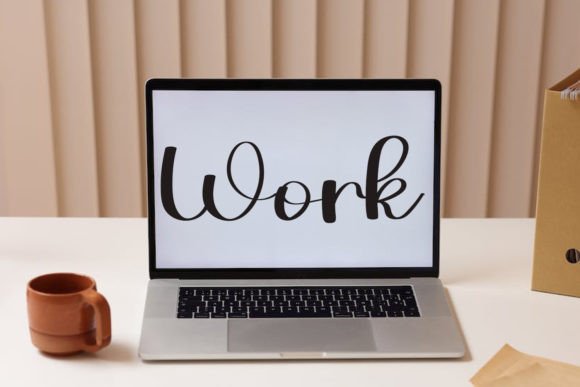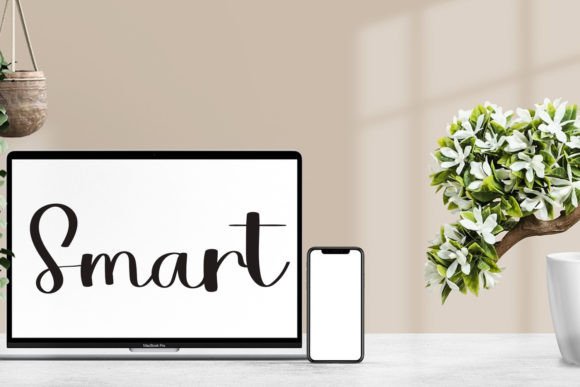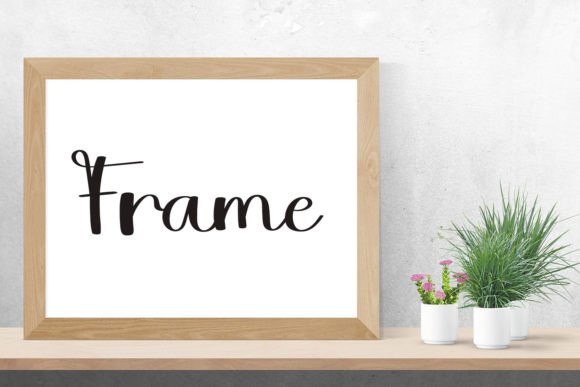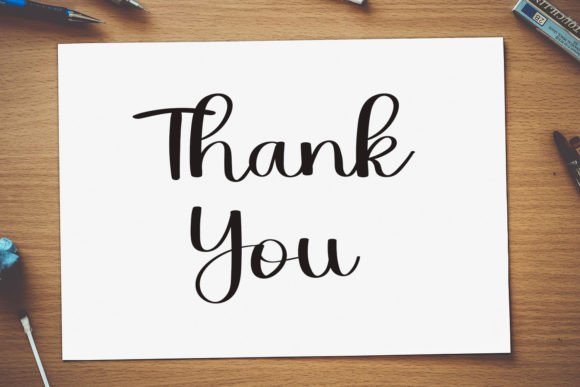
Introducing Heading Font: The Ultimate Typeface for Eye-Catching Headlines
In the world of design, typography plays a crucial role in capturing the attention of your audience and conveying your message with impact. When it comes to creating bold and attention-grabbing headlines, the right font can make all the difference. That’s where Heading Font comes in – a robust and commanding typeface designed specifically for headlines and titles that demand attention.
The Power of Strong Lines and Commanding Presence
Heading Font boasts strong lines and a commanding presence that instantly draws the eye. Its carefully crafted letterforms are designed to make a statement, ensuring your headings stand out with confidence and style. Whether you’re working on a poster, banner, or editorial layout, Heading Font is the perfect choice for designers and crafters looking to add a touch of boldness and sophistication to their work.
Key Features of Heading Font
- Bold and Impactful: Heading Font is designed to make a statement with its bold and impactful letterforms, perfect for headlines and titles that demand attention.
- Strong Lines: The font features strong lines that add to its commanding presence, making it perfect for posters, banners, and editorial layouts.
- Attention-Grabbing: With its unique and carefully crafted letterforms, Heading Font is guaranteed to grab the attention of your audience and leave a lasting impression.
- Versatile: Heading Font is perfect for a variety of design applications, including posters, banners, editorial layouts, and more.
Why Choose Heading Font?
With so many fonts to choose from, why should you choose Heading Font for your next design project? Here are just a few reasons:
- Instant Impact: Heading Font is designed to make an instant impact, grabbing the attention of your audience and drawing them in.
- Professional Look: The font’s strong lines and commanding presence give it a professional look that’s perfect for designers and crafters looking to elevate their work.
- Easy to Read: Despite its bold and impactful design, Heading Font is easy to read, making it perfect for headlines and titles that need to convey a message quickly and effectively.
Design Applications for Heading Font
Heading Font is a versatile typeface that can be used in a variety of design applications, including:
- Posters: Use Heading Font to create bold and eye-catching posters that grab the attention of your audience.
- Banners: The font’s strong lines and commanding presence make it perfect for banners that need to make a statement.
- Editorial Layouts: Use Heading Font to add a touch of sophistication and elegance to your editorial layouts.
Tips for Using Heading Font
Here are a few tips for getting the most out of Heading Font:
- Use it Sparingly: Because Heading Font is so bold and impactful, it’s best to use it sparingly to avoid overwhelming your design.
- Experiment with Colors: Try experimenting with different colors to find the perfect combination that makes your headings pop.
- Pair it with Other Fonts: Heading Font pairs well with other fonts, so don’t be afraid to experiment with different combinations to find the perfect look for your design.
In conclusion, Heading Font is a bold and impactful typeface that’s perfect for designers and crafters looking to add a touch of sophistication and elegance to their work. With its strong lines, commanding presence, and attention-grabbing letterforms, Heading Font is guaranteed to make a statement in any design. So why wait? Try Heading Font today and take your designs to the next level!